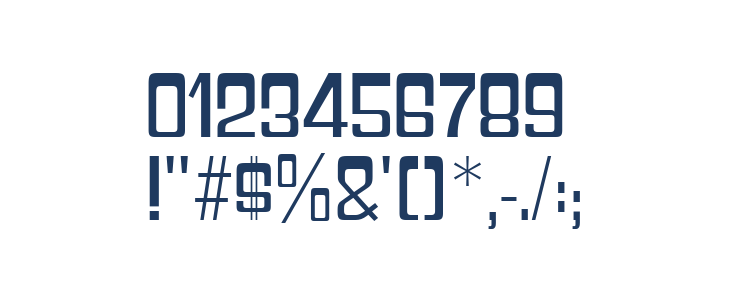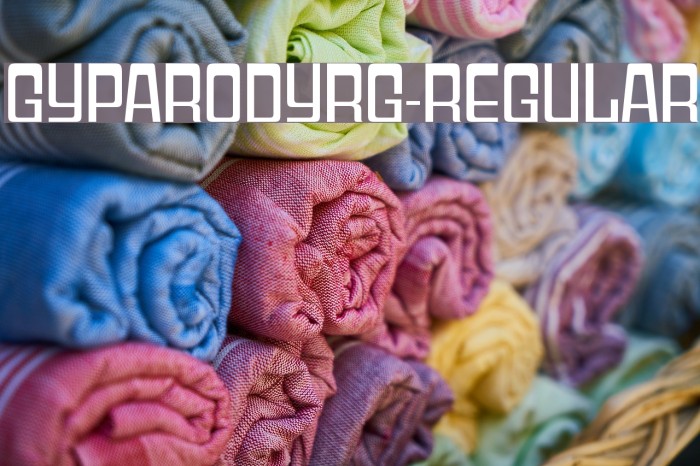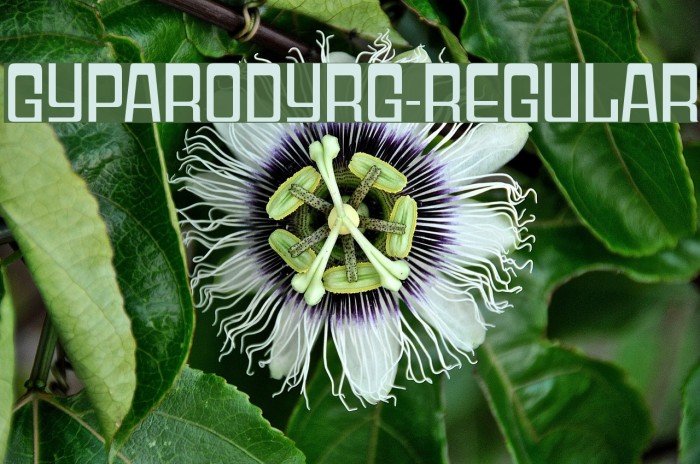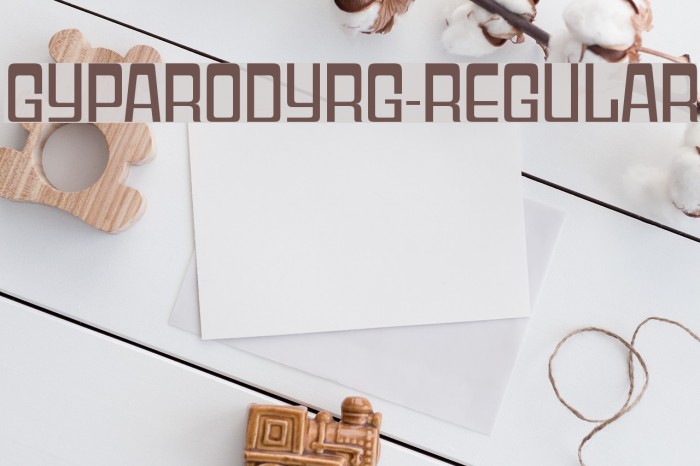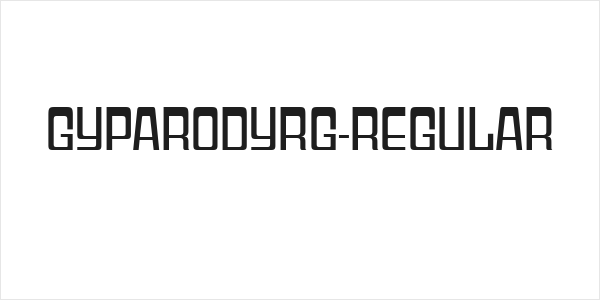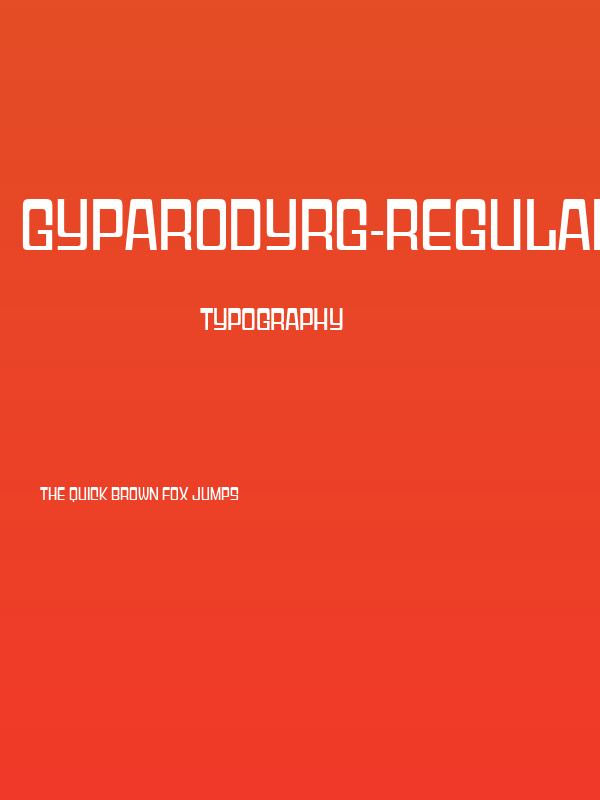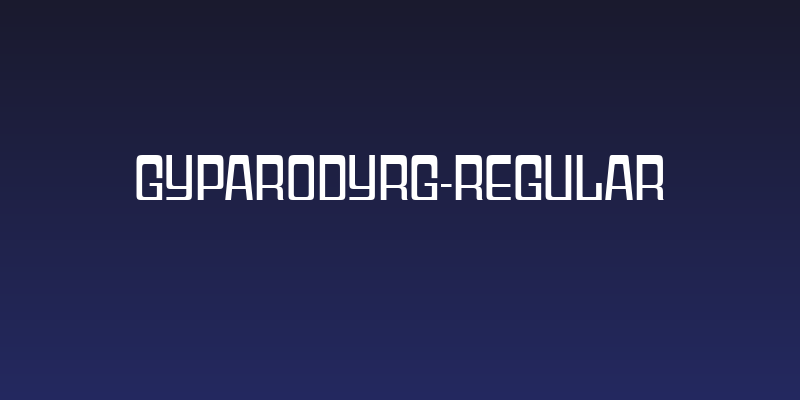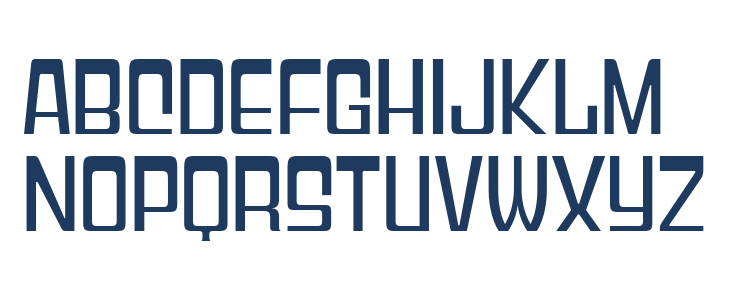
GyparodyRg-Regular Font
GyparodyRg-Regular Description
This font features a bold and modern design with a geometric structure. The characters are crafted with a consistent stroke width, giving it a uniform appearance. The uppercase letters are distinct with sharp angles and clean lines, while the lowercase letters maintain a similar style, ensuring readability. The numerals are equally bold, matching the overall aesthetic of the font. Special characters are included, designed to complement the alphanumeric characters seamlessly. This font is ideal for projects that require a strong and contemporary look.
| Proposed Projects | Ideal for branding, headlines, posters, and digital media that require a strong visual impact. |